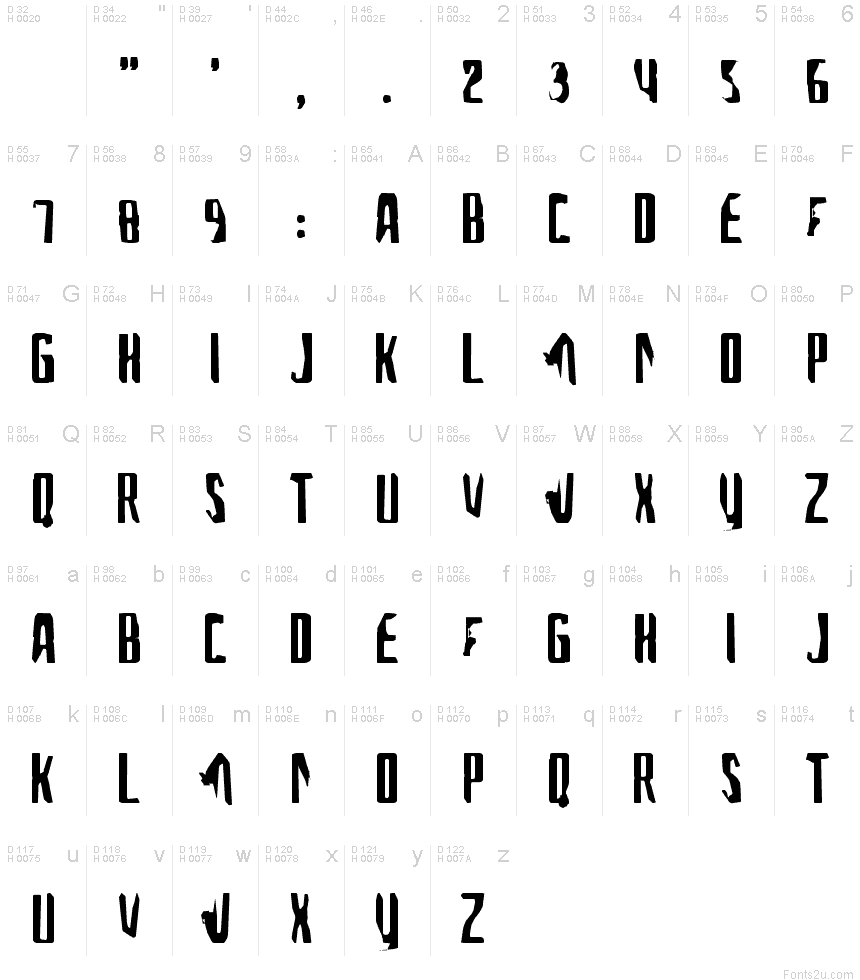
A Font For The Computer People
A Font For The Computer People font by an independent designer is a free distorted display typeface that looks like it was pulled straight from a corrupted terminal screen. Tall, compressed letters stretch upward like neon bars, with ragged curves and sharp, angular cuts that feel half-digital, half-handmade. The texture is jittery and tense, giving headlines a wired, underground energy that suits tech, glitch, and cyberpunk themes perfectly.
Using A Font For The Computer People, you can push titles for hacker posters, game splash screens, techno event flyers, zines, sci-fi logos, and streaming overlays into full-on digital dystopia. The tight spacing and vertical emphasis draw the eye instantly, so this free font works best in short, bold lines rather than long text blocks. Pair it with a clean geometric sans in smaller sizes to keep layouts readable while the main title does all the visual damage.